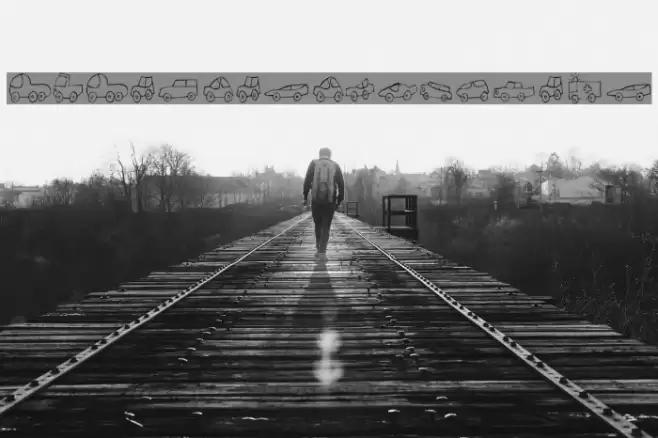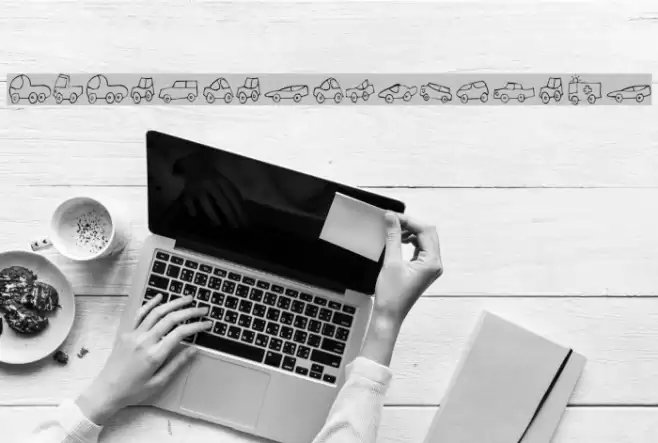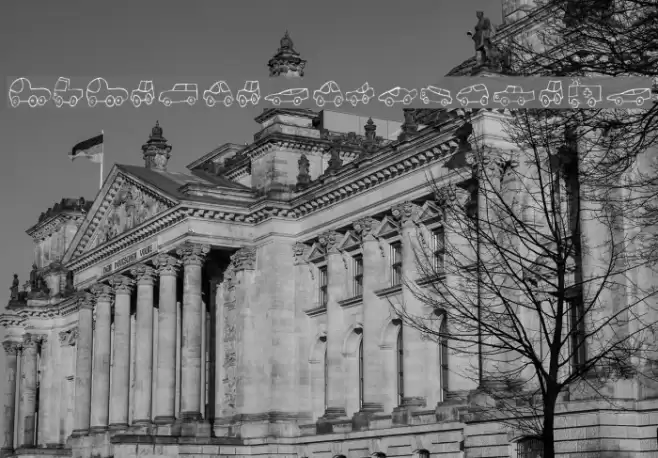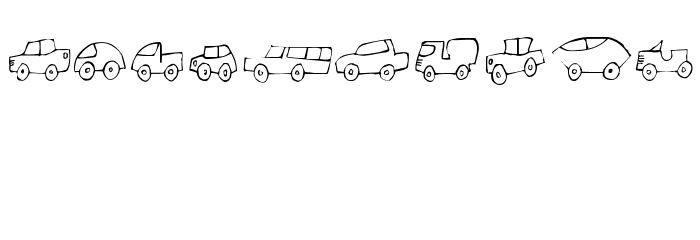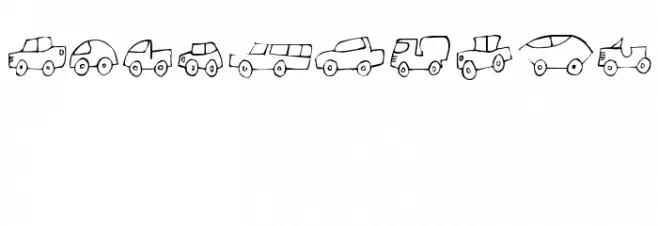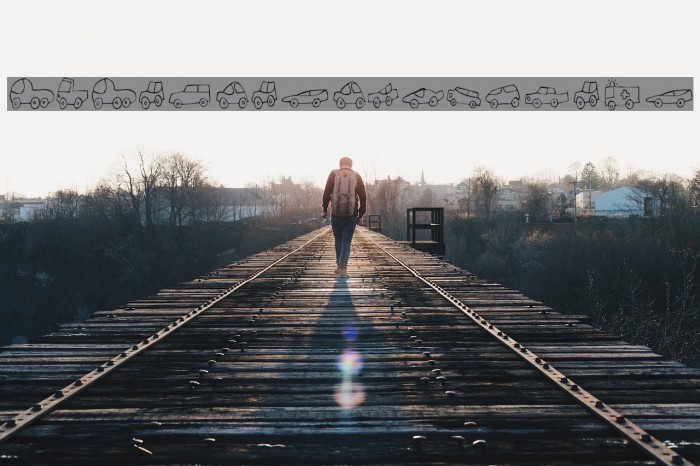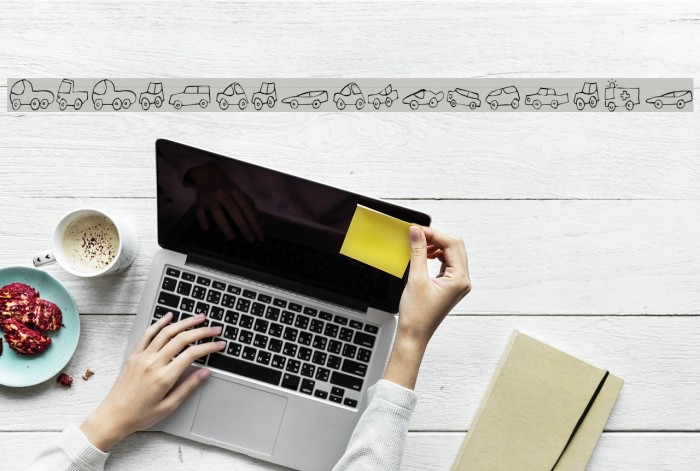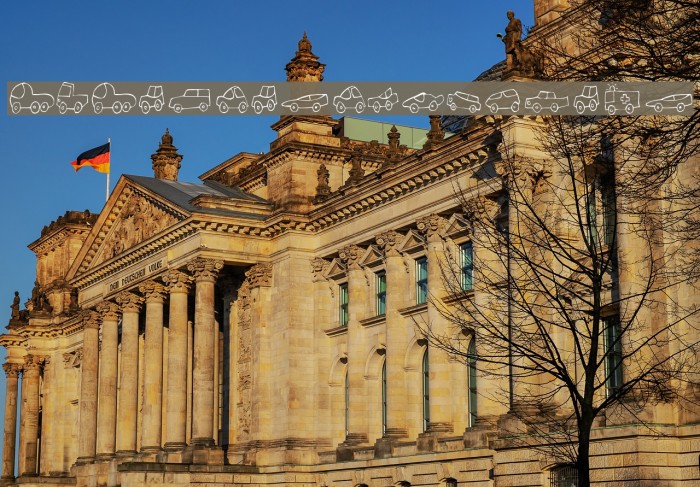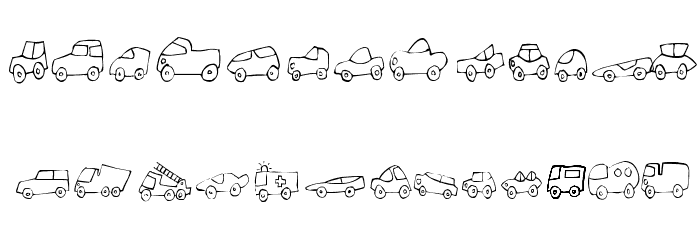
FE-FantastiqueCars Font
FE-FantastiqueCars Description
This collection features a whimsical and playful set of car illustrations, each uniquely designed with a cartoonish style. The vehicles range from compact cars to buses, each with exaggerated features and a hand-drawn aesthetic. The lines are smooth and consistent, giving a cohesive look across the set. The designs are simple yet detailed enough to convey the distinct characteristics of each vehicle type. This set is perfect for projects that require a fun and lighthearted touch, such as children's books, educational materials, or playful branding.
A whimsical set of cartoonish car illustrations with a playful, hand-drawn style from Uncategorized fonts.
- Proposed Projects: Ideal for children's books, educational materials, playful branding, and creative design projects.
- Overall Style: Playful, Cartoonish
- Use Case: Illustrations, Branding, Educational Materials